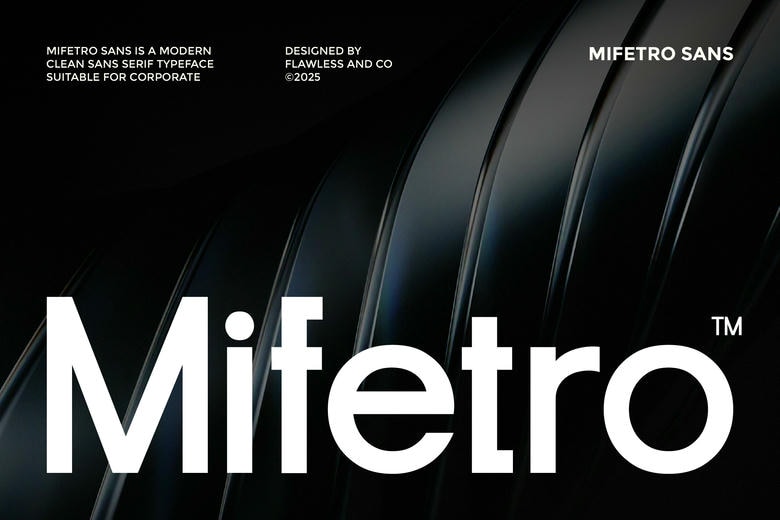
Mifetro Font
Mifetro is a contemporary clean sans serif typeface designed as a professional and corporate design typeface. Designed with accurate geometry, proportionality, and legibility, Mifetro provides a smooth and modern look that identifies a sense of clarity, assurance and trustworthiness.
Mifetro Sans Serif Font